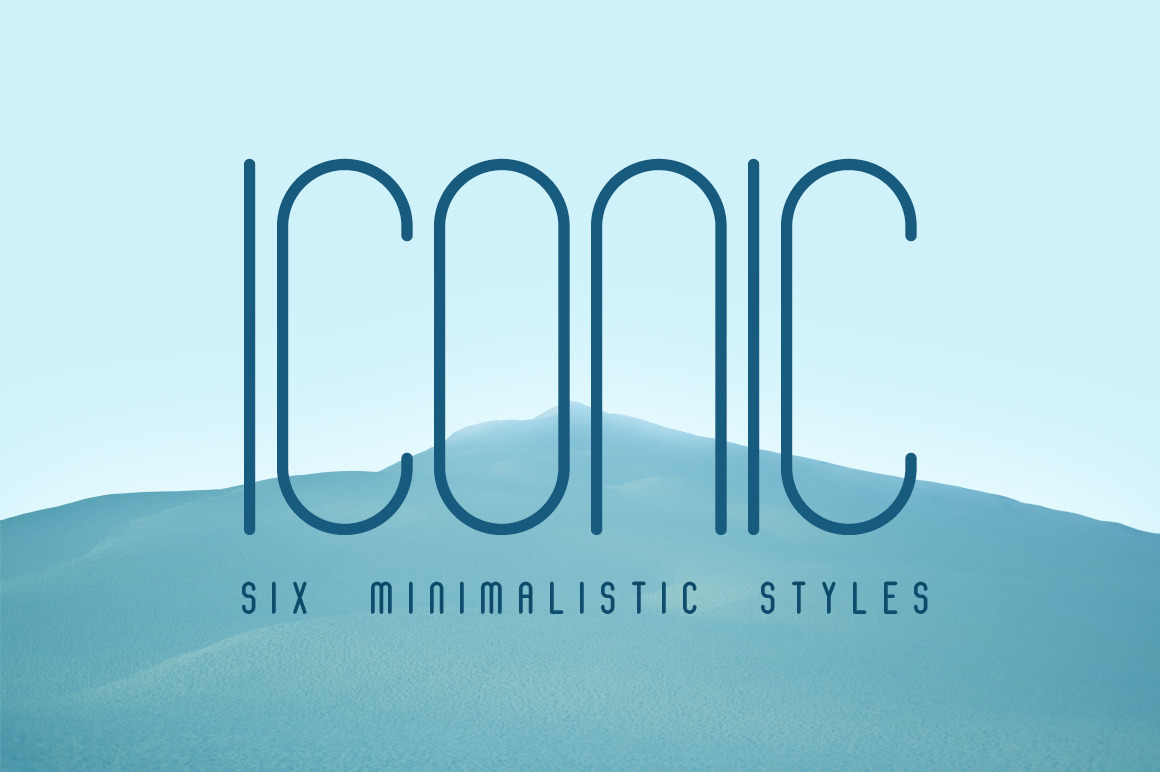
Iconic Font | 6 styles
Iconic is a unique minimalistic font.
Made for giving minimalistic and thin titles. Iconic packs a set of 6 styles, capitals, numbers and punctuation. Font for design greeting, prints, web and app design, invitation, business cards, presentations.
- 6 styles